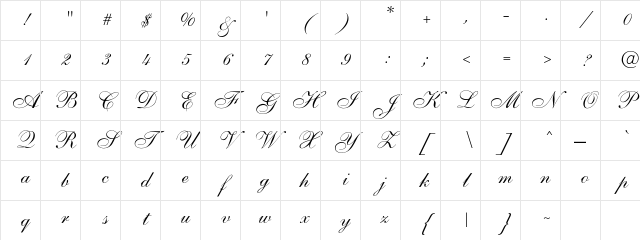
Allegro Regular
Allegro Family
Design Context for Allegro
Allegro is a composed and adaptable typeface that performs quietly and consistently across a wide range of design contexts.
Pro Tip: Use Allegro in both headline and body roles to test its range before committing to a single application.